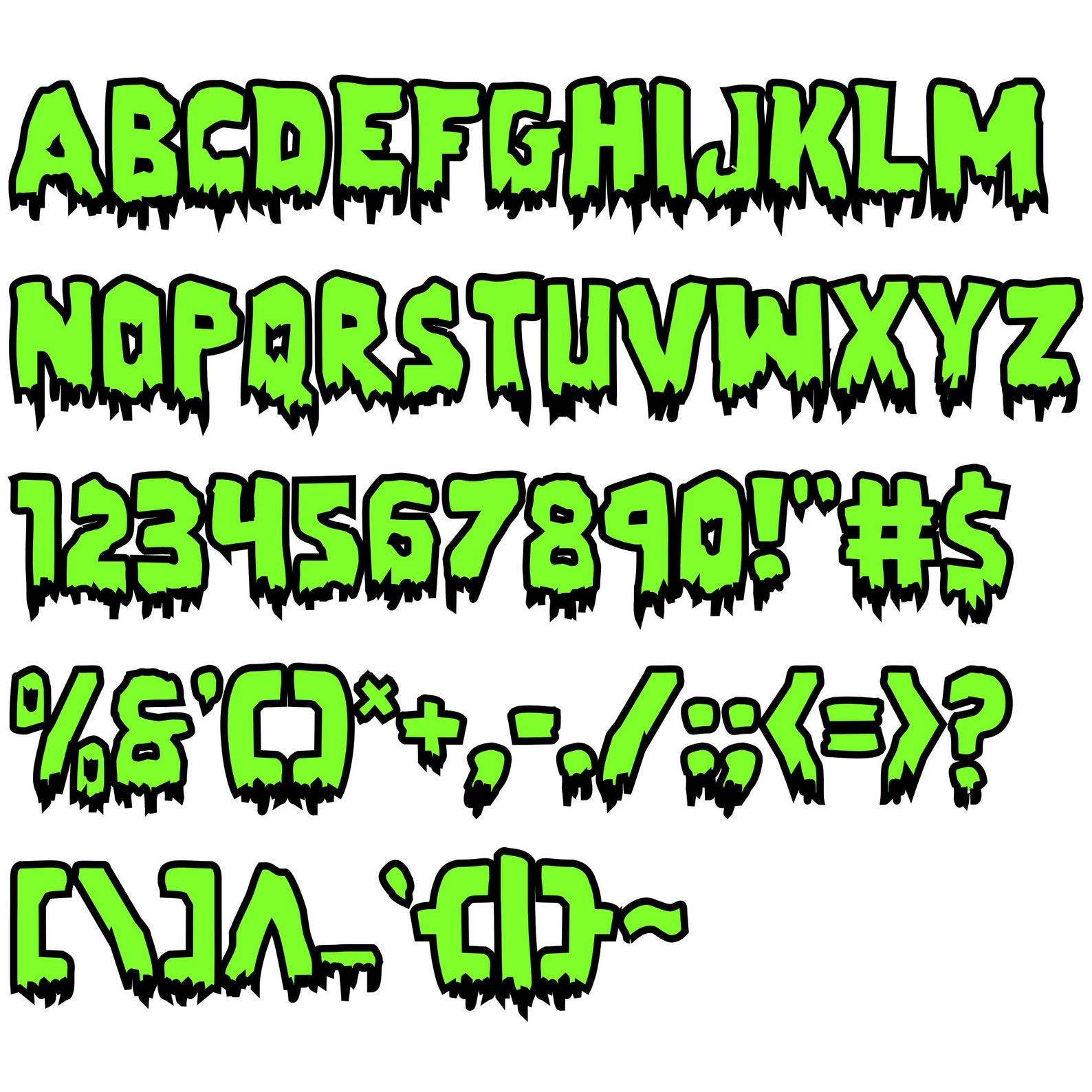
Rob Zombie Font
Rob Zombie Font - Unleash your undead creativity with these free zombie fonts! Web font from rob zombie's halloween title card. Web learn how to use the font from the 2003 horror film house of 1000 corpses by rob zombie, which is similar to national. Going to myfonts, or dafont? Please help me with the font rob zombie's name is in. Nov 07, 2022 at 00:03. Nov 12, 2022 at 20:38. Don’t mean to be a dick, i’m curious as to what. Web what does wits end look like? Perfect for horror fans, these gruesome.
Unleash your undead creativity with these free zombie fonts! Web what does wits end look like? Web font from rob zombie's halloween title card. Web download a free font based on the logo of rob zombie, the american musician, singer, songwriter, and filmmaker. Going to myfonts, or dafont? Nov 07, 2022 at 00:03. Don’t mean to be a dick, i’m curious as to what. Nov 12, 2022 at 20:38. Web learn how to use the font from the 2003 horror film house of 1000 corpses by rob zombie, which is similar to national. 594,327 downloads (22 yesterday) 100% free.
Web learn how to use the font from the 2003 horror film house of 1000 corpses by rob zombie, which is similar to national. Don’t mean to be a dick, i’m curious as to what. Web download a free font based on the logo of rob zombie, the american musician, singer, songwriter, and filmmaker. Nov 12, 2022 at 20:38.
Web font from rob zombie's halloween title card.